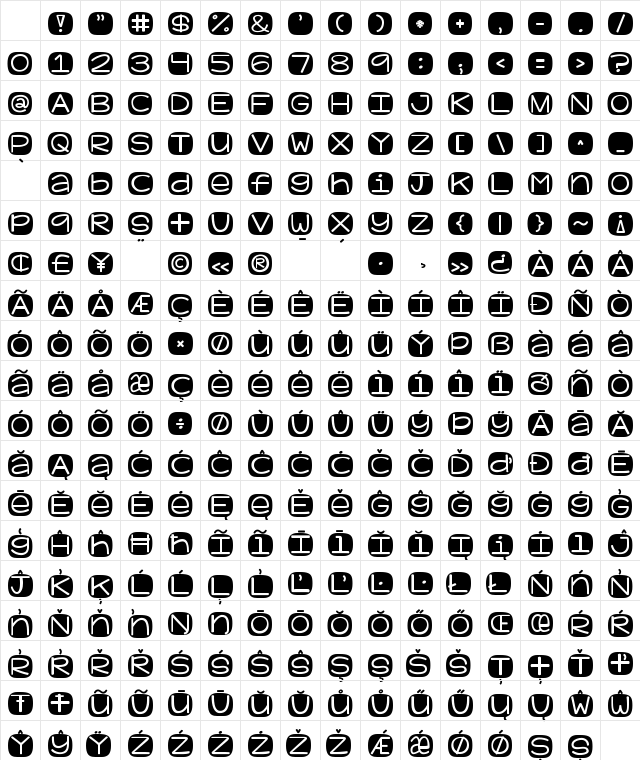
Complete KG Geronimo Blocks Regular glyph index. Displaying only characters natively supported by KG Geronimo Blocks Regular font.
KG Geronimo Blocks is a composed and adaptable typeface that performs quietly and consistently across a wide range of design contexts.